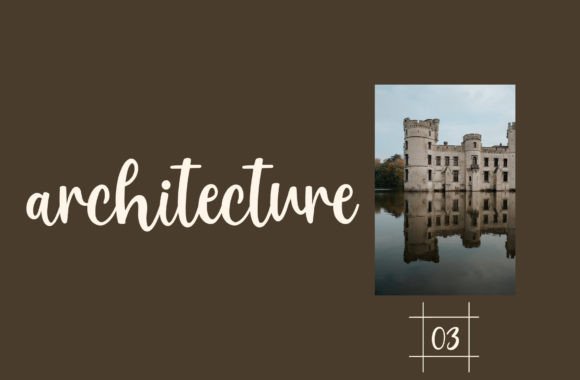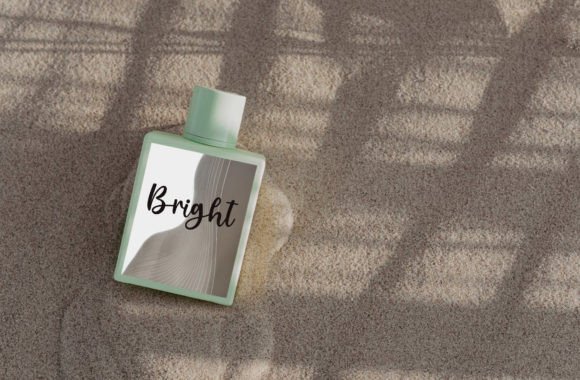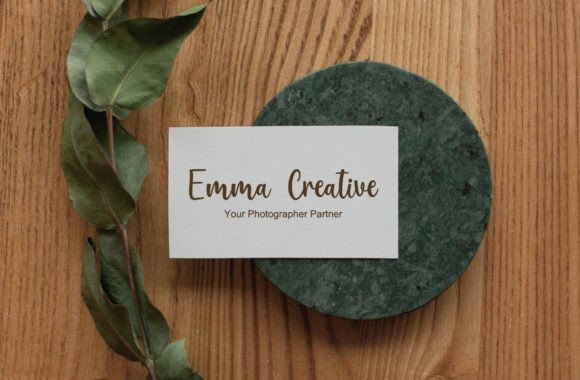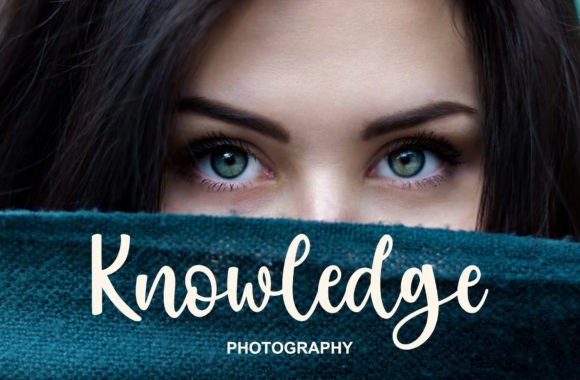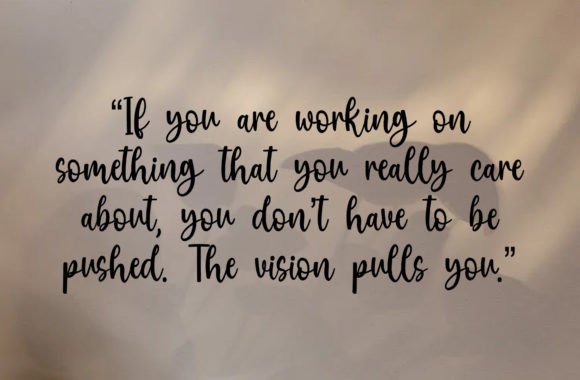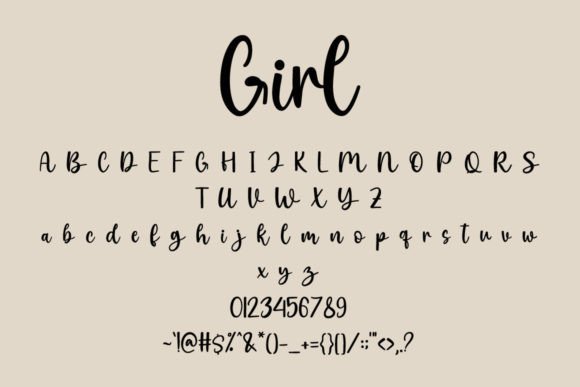
Discover the Charm of Girl Font: A Beautiful Handwritten Typeface
In the world of typography, few fonts capture the essence of elegance and charm as perfectly as Girl Font. This stunning handwritten font has been making waves among designers and crafters alike, and for good reason. With its casual yet sophisticated demeanor, Girl Font is the perfect addition to any design project, from branding and advertising to crafting and DIY endeavors.
The Beauty of Girl Font
Girl Font is a beautiful and elegant handwritten font that exudes a sense of warmth and approachability. Its casual charm makes it appear wonderfully down-to-earth, readable, and incredibly versatile. Whether you’re looking to create a stunning headline or add a touch of personality to your text, Girl Font is the perfect choice. Its elegant strokes and flowing curves make it a joy to read, and its unique character ensures that your design will stand out from the crowd.
What Makes Girl Font So Special?
So, what sets Girl Font apart from other fonts? For starters, its versatility is unmatched. Whether you’re using it on a busy background or as a standalone headline, Girl Font looks outstanding in any context. Its readability is also top-notch, making it perfect for use in a variety of applications, from body text to captions and titles. Additionally, Girl Font’s casual charm gives it a friendly and approachable feel, making it perfect for brands and designers looking to create a warm and inviting aesthetic.
Girl Font is a dream come true for designers and crafters. Its unique character and versatility make it perfect for a wide range of projects, from:
- Branding and advertising: Use Girl Font to create stunning logos, business cards, and brochures that showcase your brand’s personality.
- Crafting and DIY: Add a touch of elegance to your crafting and DIY projects, from party invitations to handmade cards and gift tags.
- Social media: Use Girl Font to create eye-catching social media graphics, from Facebook posts to Instagram stories.
- Web design: Add a touch of sophistication to your website with Girl Font, perfect for use in headings, titles, and body text.
Tips for Using Girl Font
To get the most out of Girl Font, here are a few tips to keep in mind:
- Experiment with different colors: Girl Font looks stunning in a variety of colors, from bold and bright to soft and pastel.
- Pair it with other fonts: Girl Font pairs perfectly with a range of other fonts, from sans-serif to serif.
- Use it consistently: Use Girl Font consistently throughout your design to create a cohesive and recognizable brand aesthetic.
- Don’t be afraid to get creative: Girl Font is a versatile font that can be used in a wide range of contexts, so don’t be afraid to experiment and try new things!
In conclusion, Girl Font is a beautiful and elegant handwritten font that is perfect for designers and crafters looking to add a touch of charm and sophistication to their projects. With its versatility, readability, and casual charm, Girl Font is sure to become a favorite in your design arsenal. So why not give it a try and see the difference it can make in your designs?